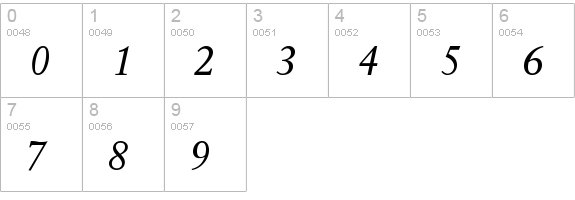
Rawlinson Regular Italic is the standard, neutral, italic variant in the Rawlinson typeface family \xE2\x80\x94 well suited to general body text, paragraphs, and standard typographic work.
Rawlinson Regular Italic is a stunning and versatile typeface that exudes elegance and sophistication. With its slanted and graceful letterforms, this font adds a touch of personality and style to any design project. The smooth curves and delicate strokes create a sense of movement and fluidity, making it perfect for conveying a sense of modernity and dynamism. The italic style of Rawlinson Regular Italic adds a sense of emphasis and emphasis to any text, making it ideal for highlighting important information or creating eye-catching headlines. Whether used in print or digital media, this font is sure to capture attention and leave a lasting impression. One of the best features of Rawlinson Regular Italic is that it is free to download at FontsMarket.com. This means that designers and enthusiasts alike can easily access this beautiful typeface without any cost. This accessibility makes it a valuable resource for both personal and commercial projects, allowing for endless creative possibilities. Whether you're designing a logo, creating a website, or working on a branding project, Rawlinson Regular Italic is a font that will elevate your design to new heights. Its classic yet contemporary aesthetic is sure to make a statement and leave a lasting impact. So why wait? Download Rawlinson Regular Italic for free at FontsMarket.com and unleash your creativity today!